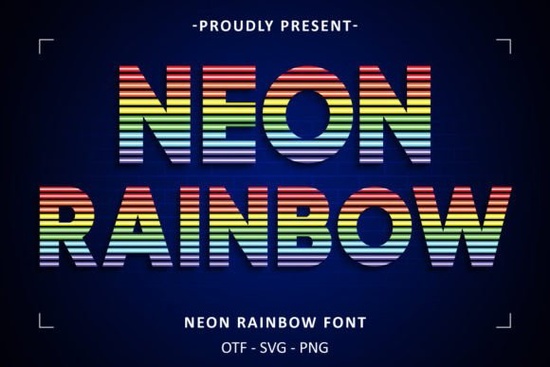
If you work with display typefaces, you know that most colorful fonts either rely too heavily on gradients that don't print well or use color in a way that distracts from readability. The Neon Rainbow Font solves both problems by building color directly into each letterform while keeping the shapes clean and easy to read. Inspired by the neon signs you see in city nightscapes and the natural gradient of a rainbow, this font brings a vivid, modern energy to any project without the usual technical headaches.
What makes the Neon Rainbow Font different from other colorful fonts?
Most colorful display fonts use a single effect or rely on software tricks to apply color. The Neon Rainbow Font does things differently. Each letter carries its own blend of bright neon tones and rainbow transitions, so you get a consistent glow effect whether you're using it in a design tool, a web project, or a physical print. The letterforms themselves are sleek and modern, not overly decorative, which means they stay readable even when you scale them down or use them in busy layouts.
The color palette draws from real neon signage think hot pinks, electric blues, lime greens, and bright yellows but blends them in a way that feels natural rather than overwhelming. For designers who have struggled with color fonts that look muddy or lose their vibrancy when exported, this typeface holds its brightness across formats.
How can you use the Neon Rainbow Font in real projects?
This font works across a wide range of creative work. Here are some of the most practical uses:
- Print-on-demand products T-shirt designs, hoodies, tote bags, and phone cases benefit from the bold color treatment that stands out on fabric and plastic.
- Social media graphics Instagram stories, YouTube thumbnails, and TikTok overlays need something that grabs attention in a crowded feed. The neon-rainbow effect does that naturally.
- Event invitations and flyers Birthday parties, pride events, music festivals, and club nights all fit the energetic, celebratory feel of this typeface.
- Small business branding Cafés,众多的 creative studios, and boutique shops can use it for signage, menu boards, or website headers to communicate a fun, modern identity.
- Digital scrapbooking and card making Crafters and hobbyists will find the font adds a polished, professional look without needing advanced design skills.
The font works especially well when paired with a dark background, which makes the neon colors pop the same way real neon signs do against a night sky. But it also holds up on lighter backgrounds thanks to the contrast built into the letterforms.
Where does the Neon Rainbow Font fit in your creative toolkit?
If you already work with other themed typefaces like bold, patriotic lettering for seasonal projects or patriotic typeface designs for holidays and events this font offers a different kind of visual energy. It leans into brightness and celebration rather than tradition, which makes it a good choice for projects that need to feel current and lively. For designers who build a library of color fonts, this one fills the gap between subtle gradients and full-on neon effects.
- Test the font on both dark and light backgrounds to see which setting makes your project pop.
- Pair it with a simple sans-serif body font so your text stays readable in longer passages.
- For print-on-demand products, run a small test print first to make sure the colors come out as expected on your chosen material.